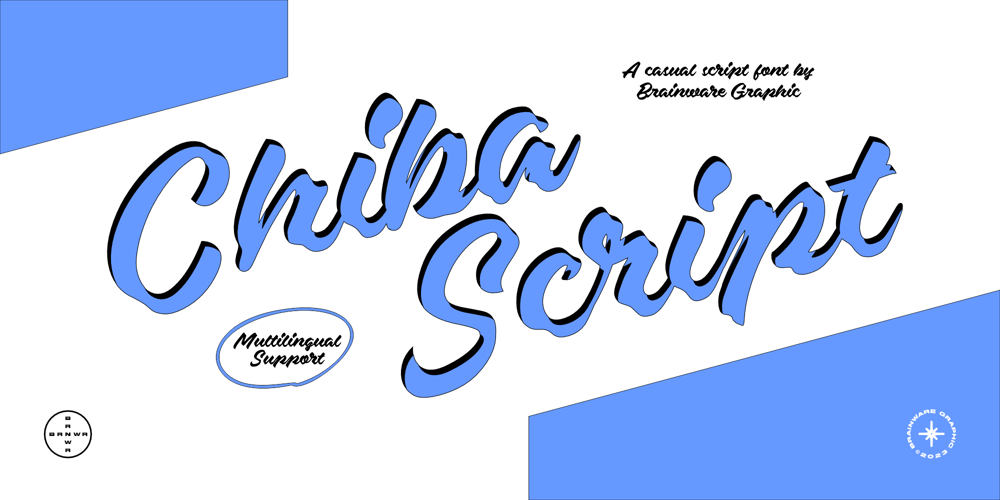
Chiba Script Font Family was designed by Muhammad Jauhar Azmi and published by Brainware Graphic. Chiba Script contains 1 styles and family package options. Chiba Script is a casual script font inspired by hand lettering and vintage sign painting. Chiba Script has only single weight, bold weight.